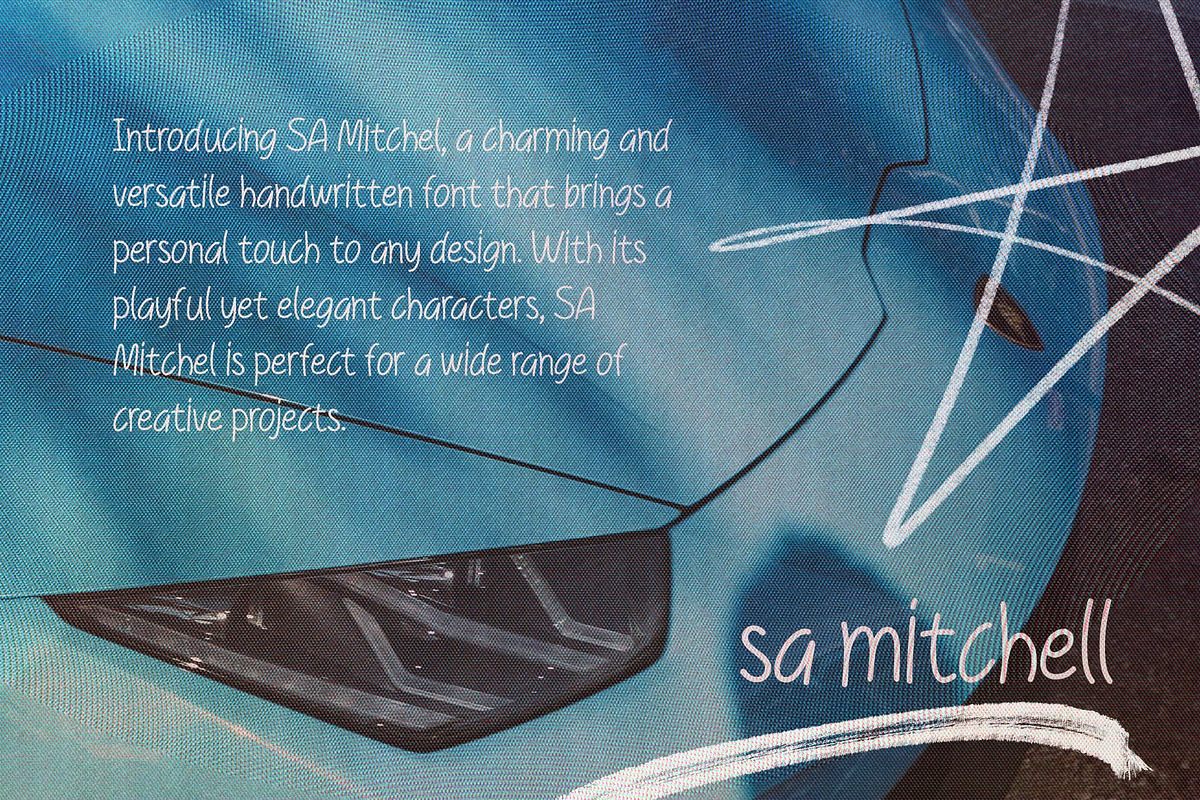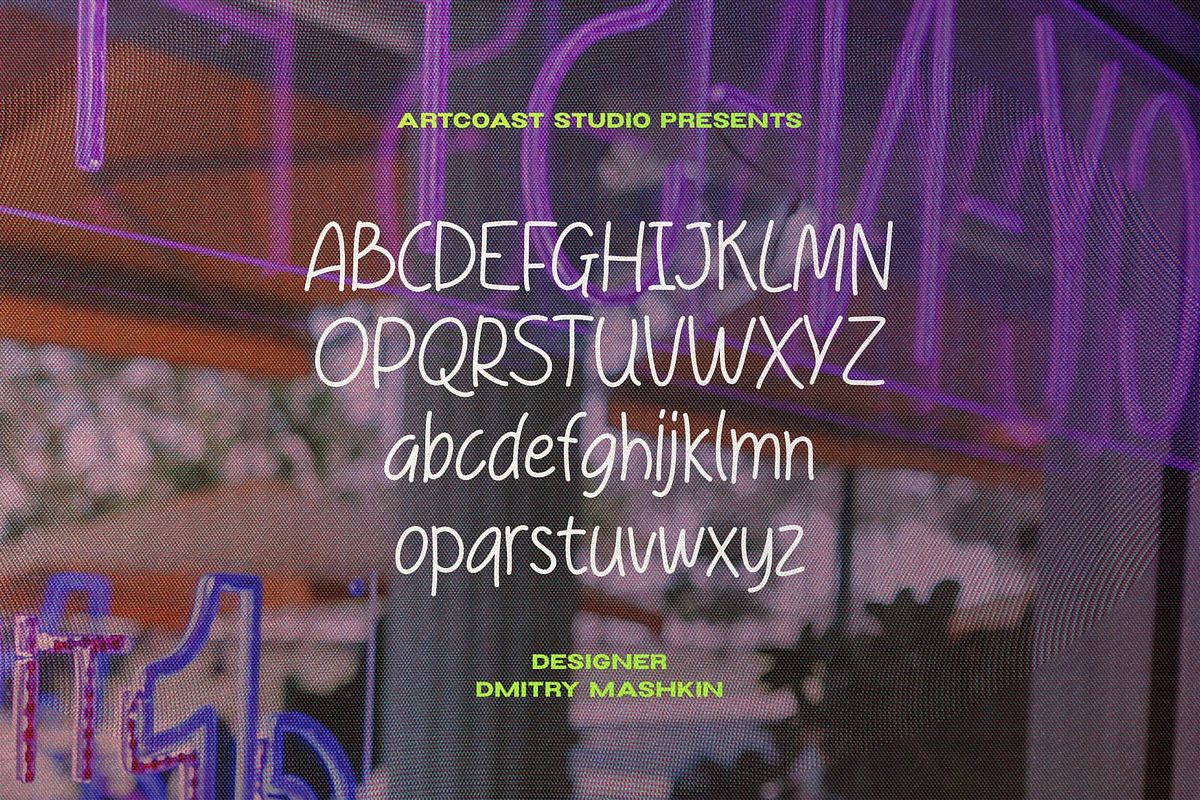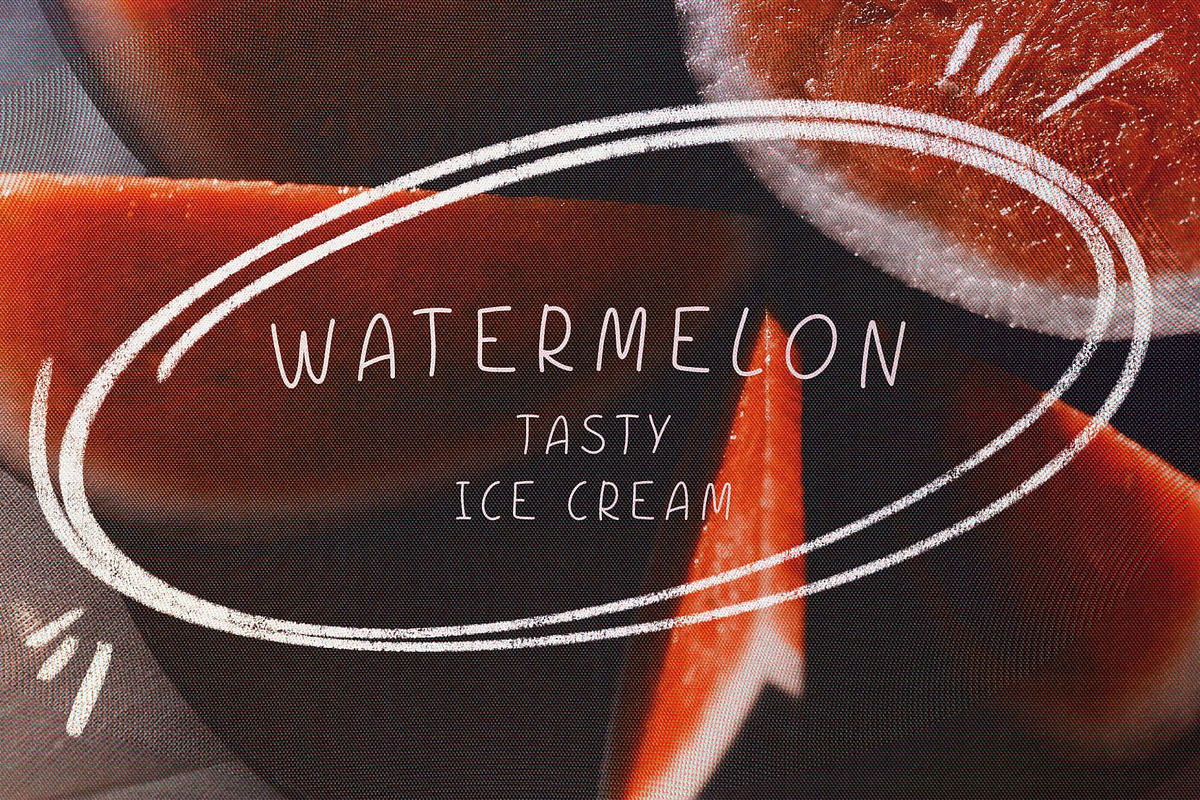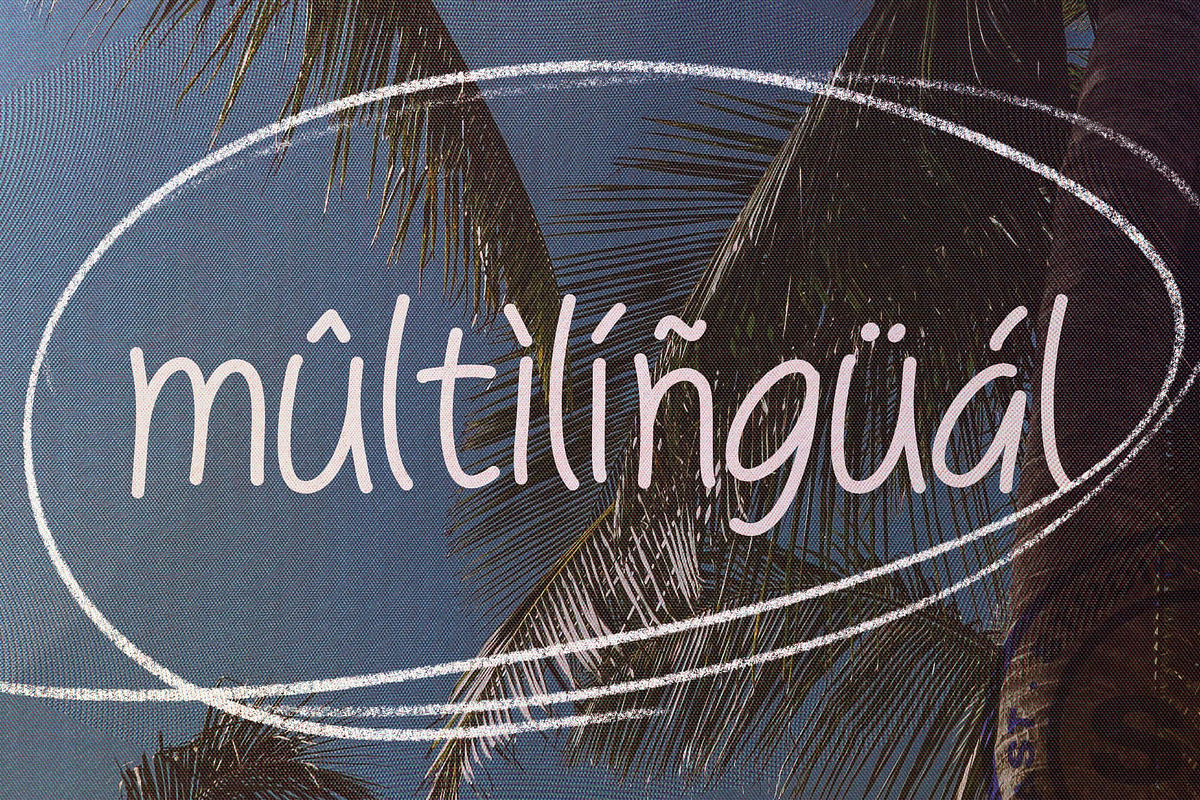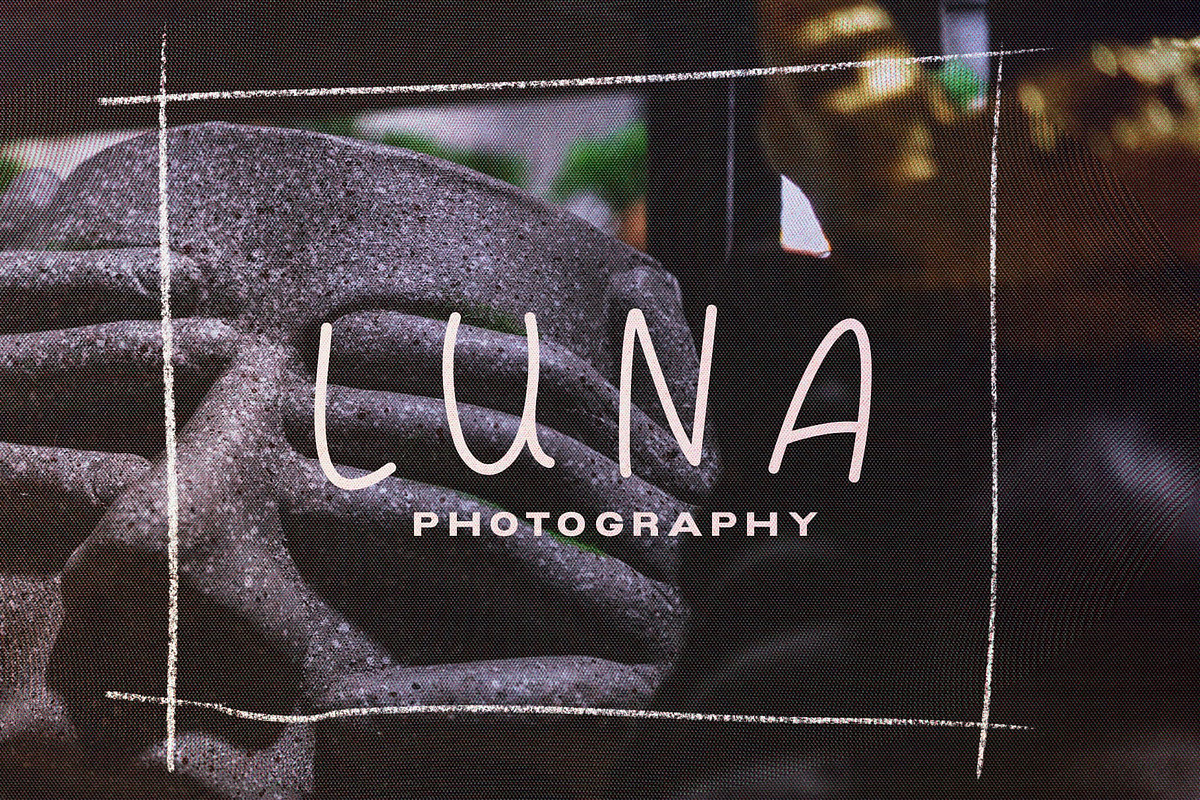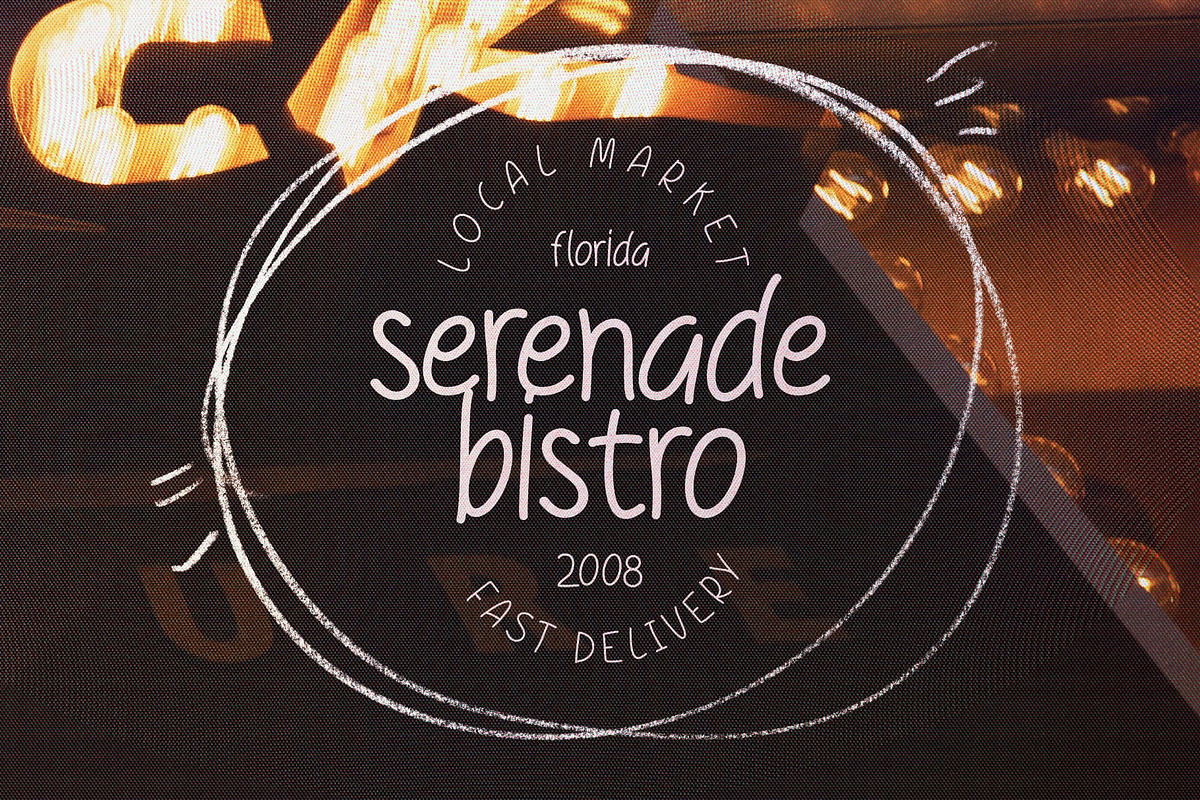
SA Mitchell | Handwritten Font
Introducing SA Mitchell, a charming and versatile handwritten font that brings a personal touch to any design. With its playful yet elegant characters, SA Mitchell is perfect for a wide range of creative projects.
Extended Latin: Includes a comprehensive set of extended Latin characters, making it suitable for various languages and applications.
Handwritten Charm: Each character is meticulously crafted to convey a natural, handwritten feel, adding warmth and personality to your designs.
Versatile Usage: Ideal for branding, logos, greeting cards, invitations, social media graphics, and more. SA Mitchell shines in both professional and personal projects.
Easy to Read: Despite its handwritten style, SA Mitchell maintains excellent legibility, ensuring your message is always clear.
Branding and Logos: Create memorable and unique brand identities with SA Mitchell’s distinctive style.
Greeting Cards and Invitations: Add a personal touch to your special occasions with beautiful handwritten text.
Social Media Graphics: Stand out on social media with eye-catching posts and stories that resonate with your audience.
Print Materials: From brochures to business cards, SA Mitchell enhances all your printed projects with a touch of elegance.
Bring your designs to life with the natural, handwritten elegance of SA Mitchell. Whether you're working on a professional branding project or creating personal invitations, SA Mitchell is the perfect choice to add a personal and authentic touch to your work.